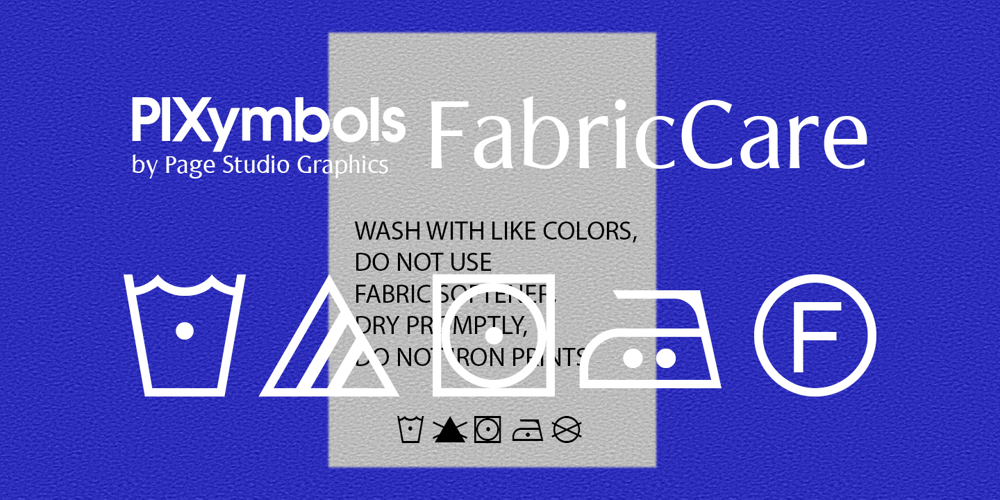
PIXymbolsFabricCare Font Family was designed by Roger Vershen and published by Page Studio Graphics. PIXymbolsFabricCare contains 1 styles and family package options. Standard fabric (or textile) care symbols used for creating clothing labels. This font has temperature setting symbols for washing, drying and ironing. It also includes bleach and dry cleaning symbols.This font uses a method that allows combinations of the washing, drying and dry cleaning symbols to create more symbols. Therefore, this font actually has a total of 73 unique fabric care symbols that can be created.